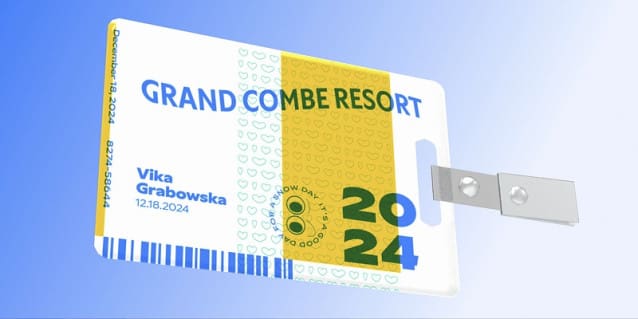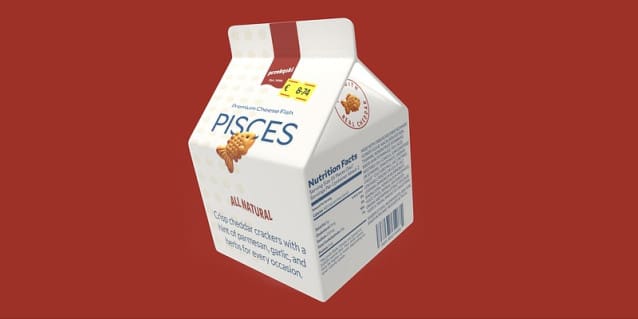
Gamay Font Family
Gamay Font Family, a bold statement with our latest sans-serif font. With its clean lines and modern appeal, this font is sure to turn heads and leave a lasting impression. Perfect for headlines, logos, and any design that demands attention. It is both functional and stylish, making it a versatile choice for a wide range of design projects.